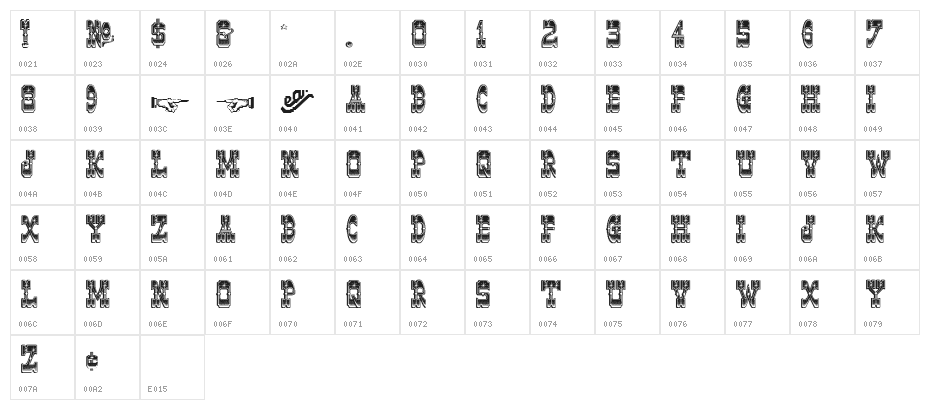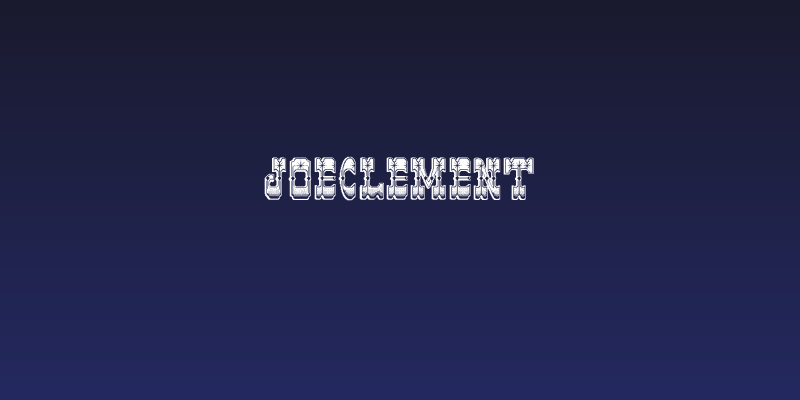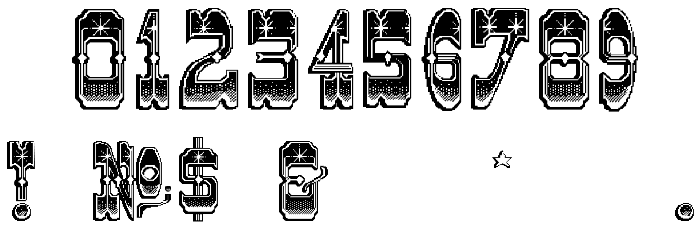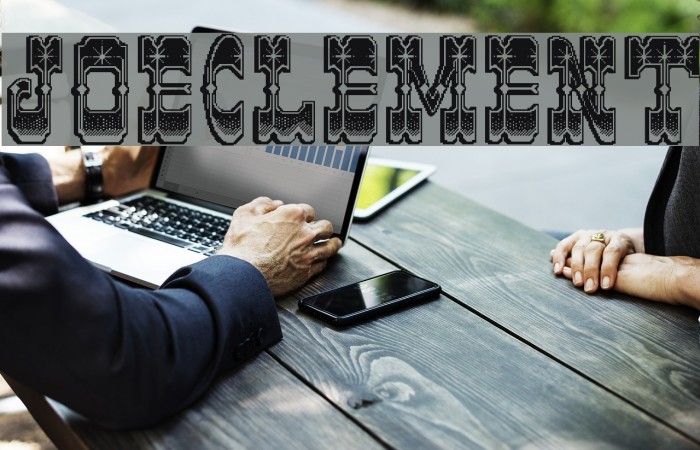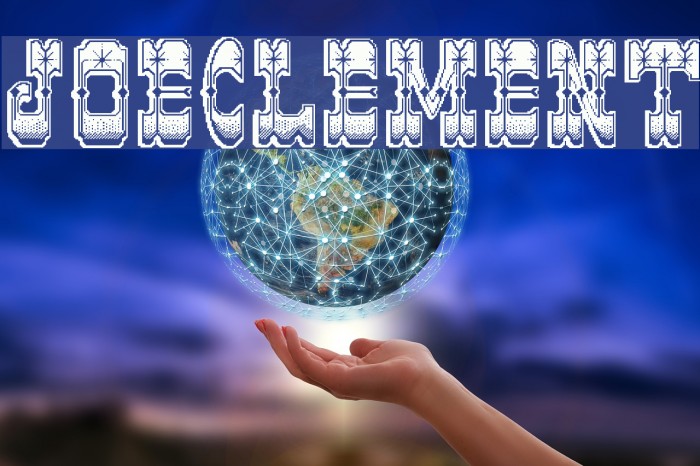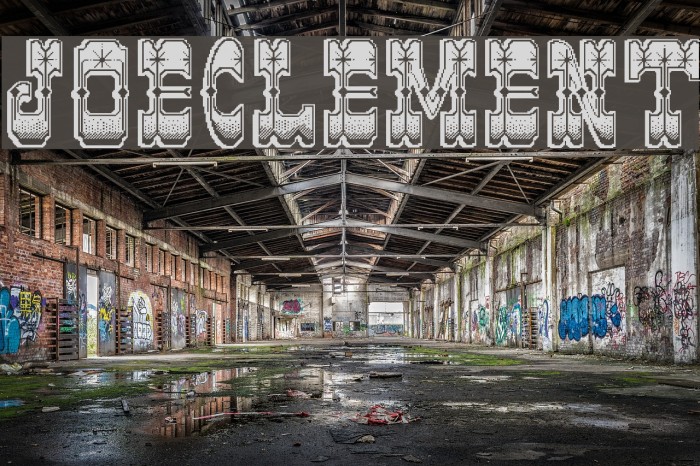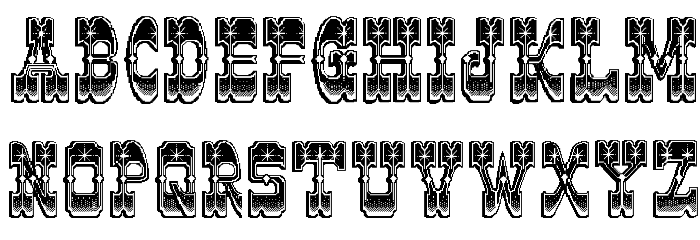
JoeClement Font
JoeClement Description
This font features a bold, decorative style with a three-dimensional effect. Each character is outlined with a thick border and filled with intricate patterns, giving it a unique and eye-catching appearance. The letters and numbers are designed with a shadow effect that adds depth and dimension. The font includes uppercase and lowercase letters, numbers, and a selection of special characters. Its playful and artistic design makes it suitable for creative projects that require a standout typeface.
JOECLEMENT UPPERCASE
JOECLEMENT LOWERCASE
JOECLEMENT OTHER CHARS